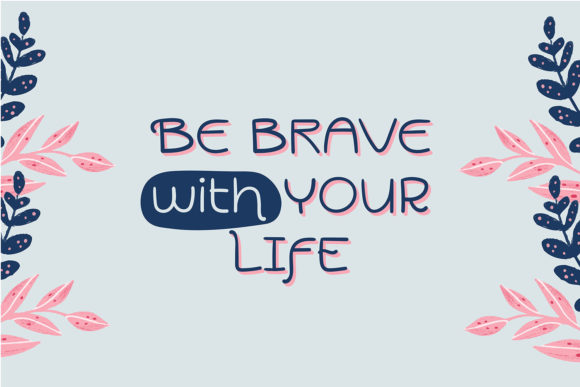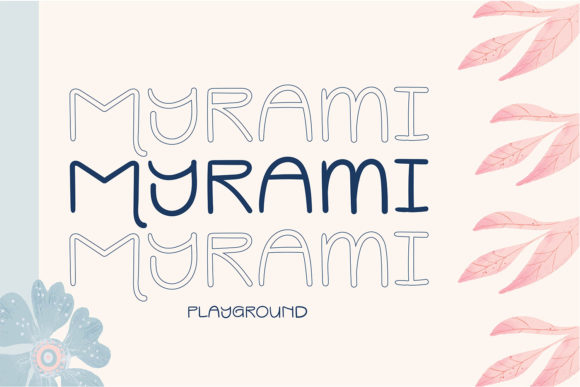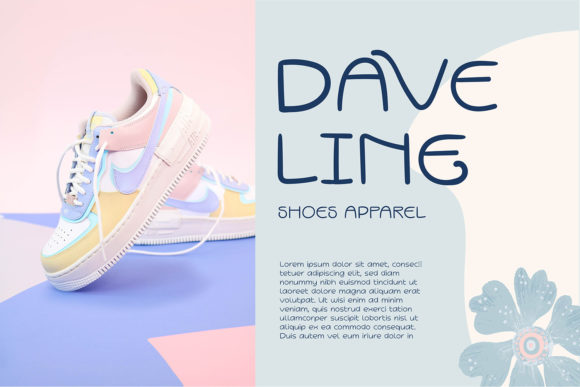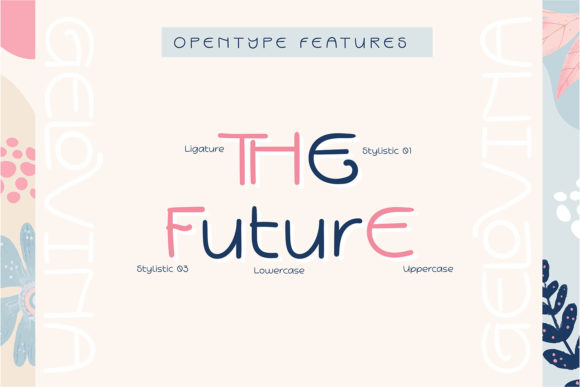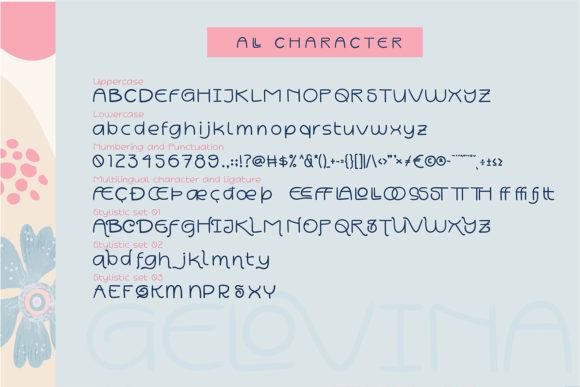
Gelovina Font
About Gelovina Font
Gelovina is a cute, fancy and unique handwritten font. It is defined by smooth curves and is perfect for fashion branding or editorial designs. This font is PUA encoded which means you can access all of the glyphs and swashes with ease!